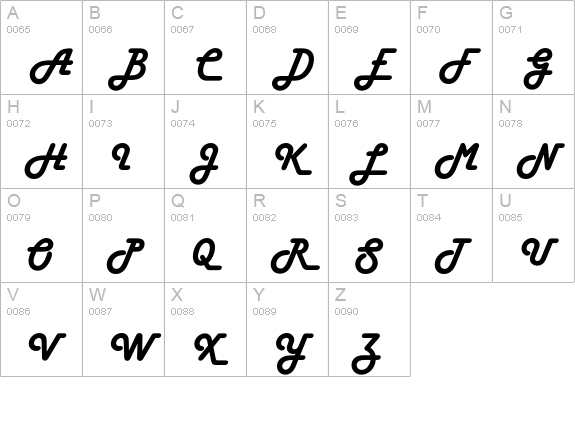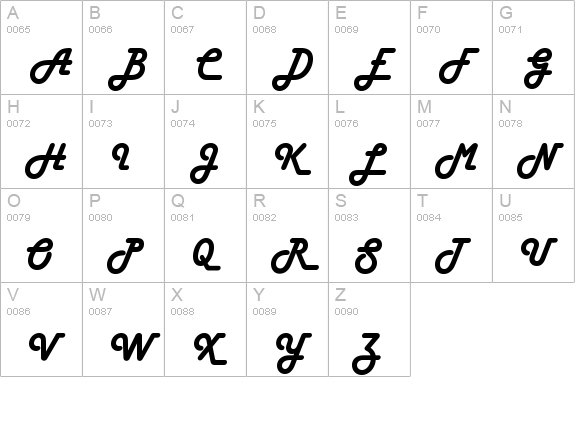
HarlowEF-Solid Font Details
Introducing HarlowEF-Solid, a captivating and versatile font that is sure to leave a lasting impression. With its bold and solid design, HarlowEF-Solid exudes confidence and elegance, making it perfect for a wide range of creative projects. Whether you're designing a logo, creating eye-catching advertisements, or crafting stunning headlines, this font will effortlessly elevate your work to new heights. HarlowEF-Solid is a font that embodies the essence of modern typography while maintaining a timeless appeal. Its clean lines and well-defined curves give it a polished and professional look, ensuring that every character stands out with clarity and precision. One of the best aspects of HarlowEF-Solid is that it is completely free. Yes, you read that right – this exceptional font is freely available to download at FontsMarket.com. Now, you can enhance your designs without any financial strain, making it an ideal choice for both personal and commercial projects. In addition to its visual appeal and affordability, HarlowEF-Solid also offers a wide range of characters and symbols, allowing you to unleash your creativity and bring your ideas to life. With its extensive language support, you can confidently communicate your message to a global audience. So, why wait? Give your designs the edge they deserve with HarlowEF-Solid. Download this stunning font today from FontsMarket.com and embark on a journey of limitless possibilities. Let HarlowEF-Solid be your trusted companion as you create beautiful and impactful designs that captivate and inspire.